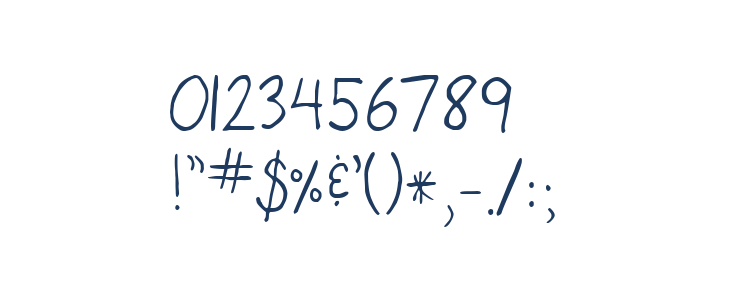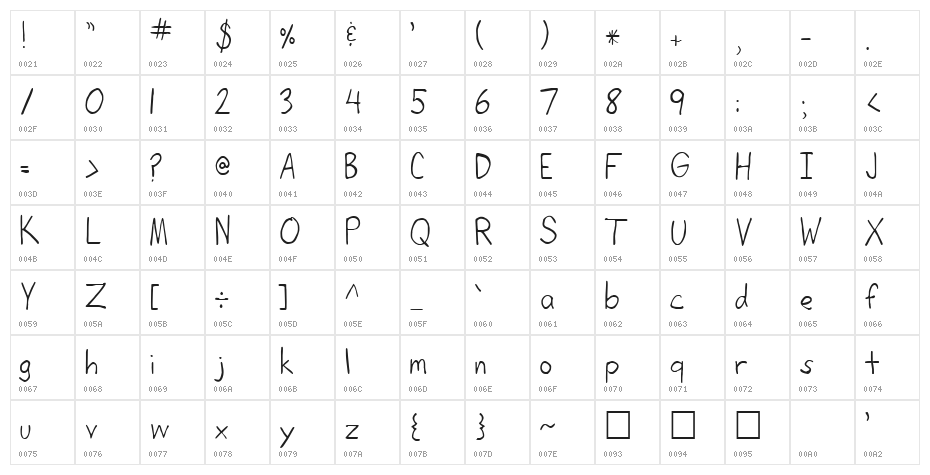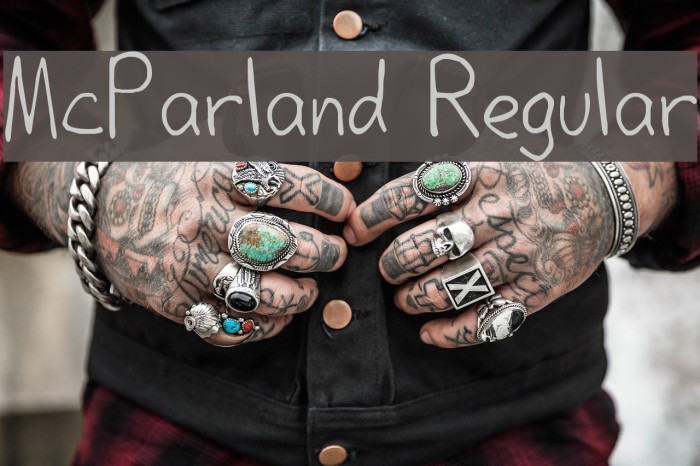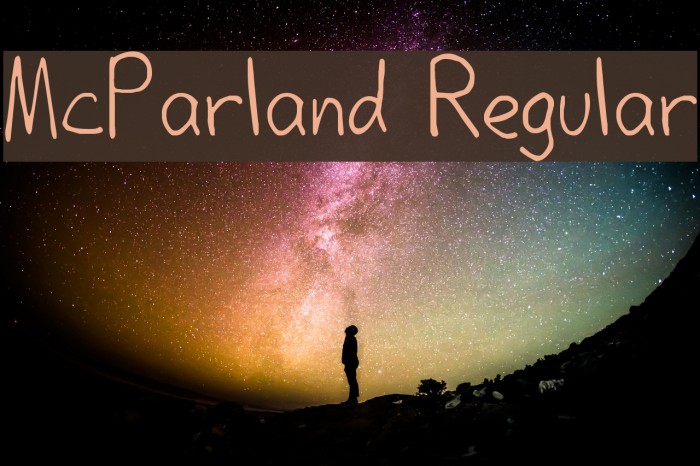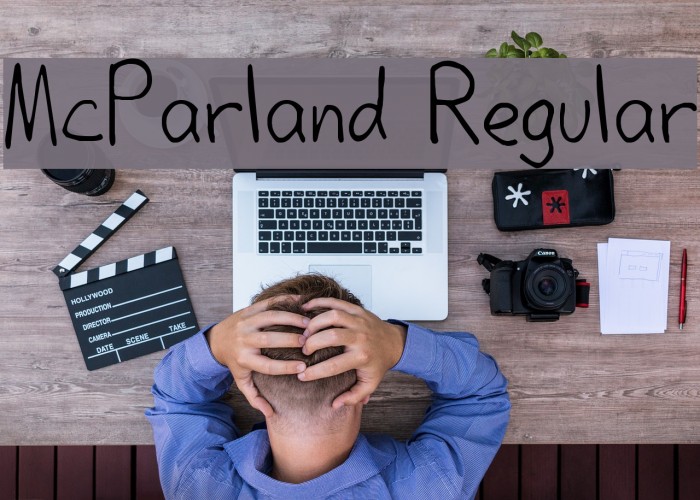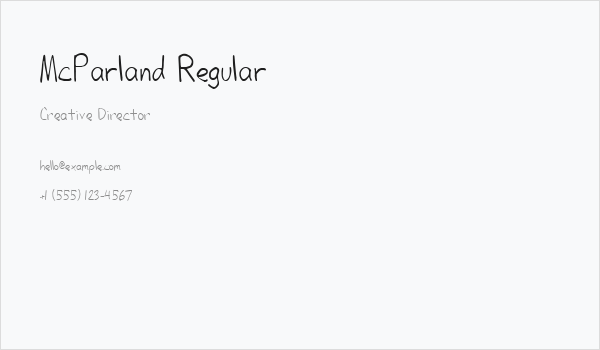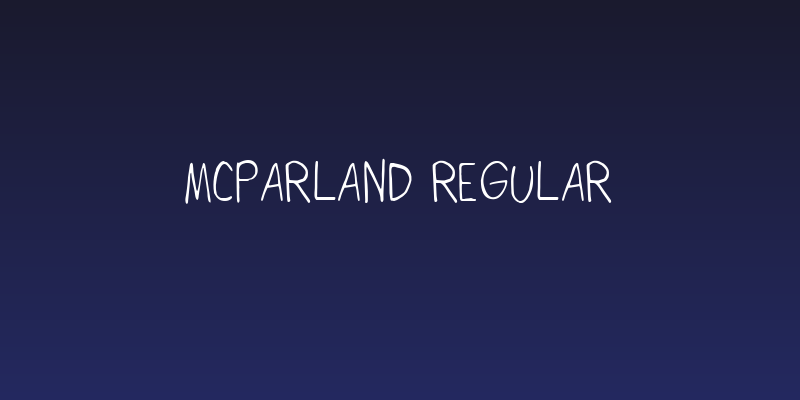
McParland Regular Font
McParland Regular Description
This font features a playful, handwritten style that exudes a casual and friendly vibe. The characters are slightly irregular, adding to the charm and authenticity of the handwritten look. The uppercase letters are tall and narrow, while the lowercase letters maintain a consistent flow, enhancing readability. Numbers and special characters are designed with the same playful touch, making them suitable for informal and creative projects. The overall appearance is approachable and versatile, perfect for adding a personal touch to any design.
| Proposed Projects | Ideal for greeting cards, children's books, personal blogs, and informal branding. |